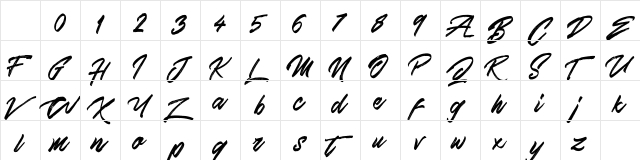
Complete Skywalker Free Demo Regular glyph index. Displaying only characters natively supported by Skywalker Free Demo Regular font.
Skywalker Free Demo is a composed and adaptable typeface that performs quietly and consistently across a wide range of design contexts.